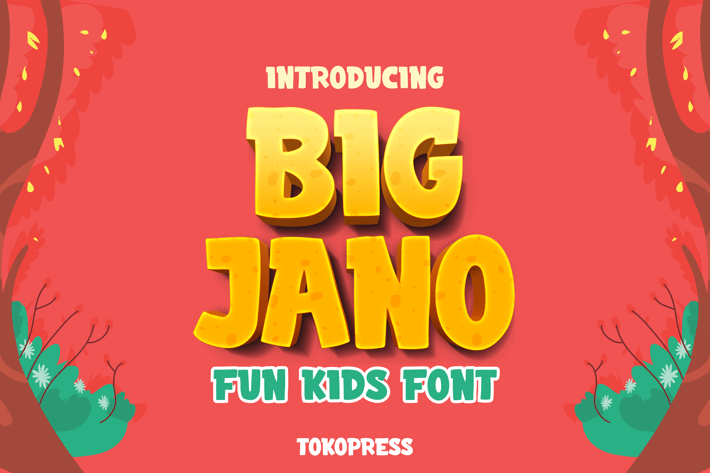
Big Jano - Kids font
BIG JANO
Big Jano is a bold and bouncy kids display font crafted for vibrant branding and joyful learning moments. With rounded terminals, chubby proportions, and a playful vibe, it brings a cheerful presence to every project. Its fun, friendly design feels right at home in children’s books, colorful posters, playful packaging, or YouTube thumbnails.
Big Jano speaks to young audiences with warmth and boldness—ideal for educational content, toy brands, summer event graphics, or animated video thumbnails. Its energetic style grabs attention instantly, giving your design a lively, kid-approved personality that makes storytelling, branding, or advertising fun and approachable.
- Rounded, bubbly letterforms create a safe and friendly tone
- High legibility at any size for both digital and print designs
- Perfectly fits kids media, edutainment, event flyers, and classroom decor
- Strong visual identity for logo design or product packaging
- A joy to use in comic-style layouts, social posts, and playful branding
- Basic latin A-Z and a-z, Numbers, Punctuation